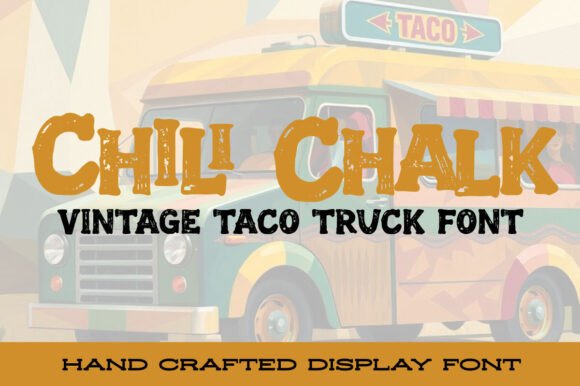
Introducing Chili Chalk Font: The Spicy Personality Your Designs Need
In the world of typography, fonts play a crucial role in conveying the tone and personality of a brand or design. When it comes to creating bold, eye-catching, and authentic designs, the right font can make all the difference. This is where Chili Chalk Font comes in – a vintage-style hand-painted font that bursts with bold, spicy character. In this article, we’ll dive into the unique features of Chili Chalk Font, its inspiration, and how it can add a flavorful touch to your designs.
What Makes Chili Chalk Font Unique?
Chili Chalk Font is a one-of-a-kind typeface that captures the vibrant energy of street food culture. Its textured, chalky strokes evoke the feeling of hand-painted signs and menus found in taco trucks, cantinas, and Latin-inspired eateries. The font’s bold, playful, and rugged look makes it perfect for designs that need a dash of zest and charm.
- Hand-painted feel: Chili Chalk Font is crafted to mimic the imperfections and uniqueness of hand-painted lettering, giving your designs an authentic, human touch.
- Textured strokes: The font’s chalky texture adds a tactile feel to your designs, making them stand out and grab attention.
- Vintage vibe: Inspired by traditional Latin American street food culture, Chili Chalk Font brings a nostalgic, retro feel to your designs.
- Playful and rugged: The font’s bold, expressive personality makes it perfect for designs that need a dash of personality and whimsy.
Perfect for Bold Headlines, Signage, and Logos
Chili Chalk Font is an incredibly versatile typeface that can be used in a wide range of design applications. Its bold, eye-catching personality makes it perfect for:
- Headlines and titles: Use Chili Chalk Font to create bold, attention-grabbing headlines that set the tone for your content.
- Signage and menus: The font’s hand-painted feel and chalky texture make it ideal for creating authentic, eye-catching signs and menus.
- Logos and branding: Add a dash of personality to your logo or brand identity with Chili Chalk Font’s unique, playful style.
- Festive designs: Use Chili Chalk Font to create vibrant, festive designs for Latin-inspired events, promotions, or celebrations.
Inspiration and Use Cases
Chili Chalk Font draws inspiration from the vibrant street food culture of Latin America. Its bold, playful personality makes it perfect for designs that need to evoke the energy and authenticity of this culture. Here are some use cases and inspiration for using Chili Chalk Font:
- Taco trucks and food trucks: Use Chili Chalk Font to create bold, eye-catching signs and menus for taco trucks and food trucks.
- Cantina menus: Add a touch of authenticity to your cantina menu with Chili Chalk Font’s hand-painted feel and chalky texture.
- Latin-inspired events: Use Chili Chalk Font to create vibrant, festive designs for Latin-inspired events, such as festivals, concerts, or celebrations.
- Brand identity: Incorporate Chili Chalk Font into your brand identity to add a dash of personality and whimsy.
Typography Tips for Using Chili Chalk Font
To get the most out of Chili Chalk Font, here are some typography tips to keep in mind:
- Use bold and large font sizes: Chili Chalk Font is designed to be bold and eye-catching, so use it in large font sizes to make a statement.
- Experiment with colors: The font’s chalky texture and hand-painted feel make it perfect for use with bright, bold colors.
- Add texture and effects: Consider adding texture or effects to your text to enhance the font’s hand-painted feel and chalky texture.
- Mix with other fonts: Combine Chili Chalk Font with other fonts to create visual interest and add contrast to your designs.
In conclusion, Chili Chalk Font is a unique and versatile typeface that can add a flavorful touch to any design. Its bold, playful, and rugged personality makes it perfect for designs that need a dash of zest and charm. Whether you’re creating bold headlines, signage, or logos, Chili Chalk Font is the perfect choice for designers looking to add a touch of authenticity and personality to their work.